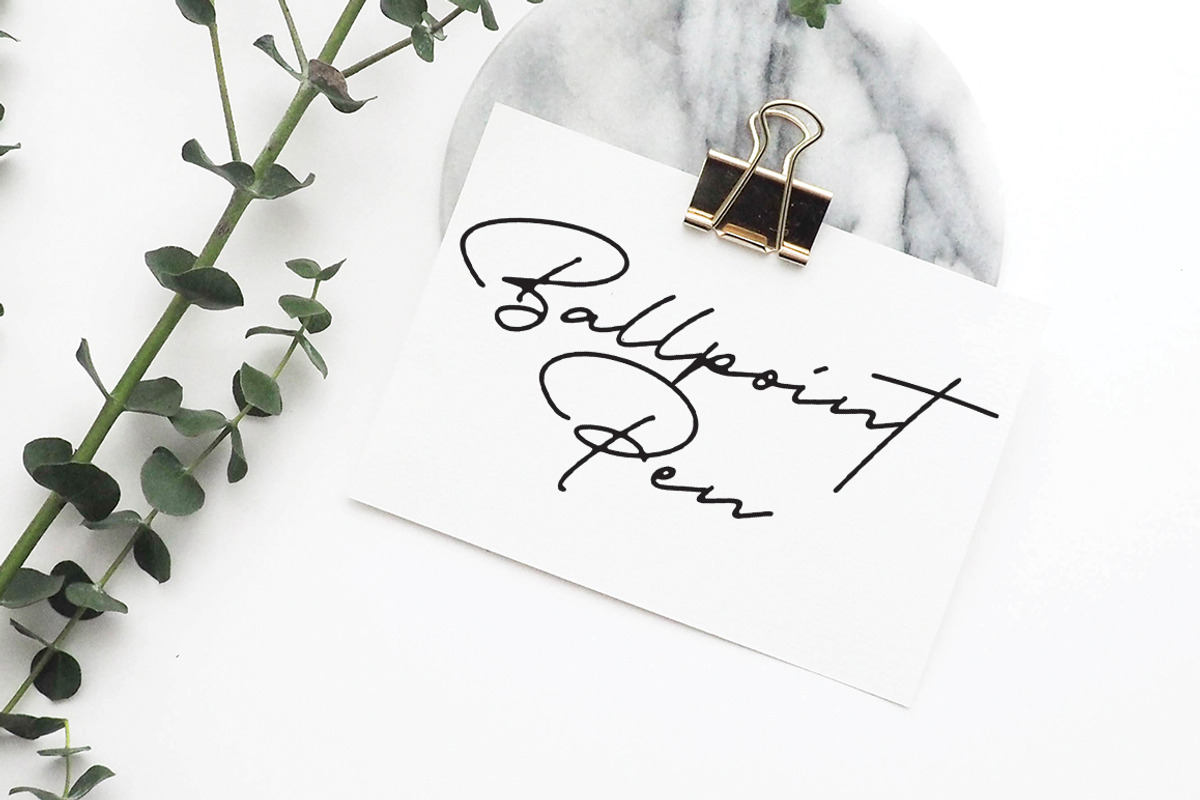
Portrait Signature Script
'Portrait' is a handwritten signature script with a natural & stylish flow. This collection of scripts is perfect for personal branding. It was made with the intention to be used by Photographers as a watermark for their Photography Business - Hence the name, 'Portrait'. But, this works well for many applications. Everything from personal branding & wedding invitations to advertising could benefit from this collection of signature fonts.
These typefaces work well for many different aesthetics. They work well with something like 'cosmetics' for example but would also work well with Liquor Labels, Signage, & any type of signature-styled logo.
Portrait is a must-have signature script that has a diverse set of alternates that will surely be used many times over in various projects in the future. This collection fills a void and separates itself from other scripts available.